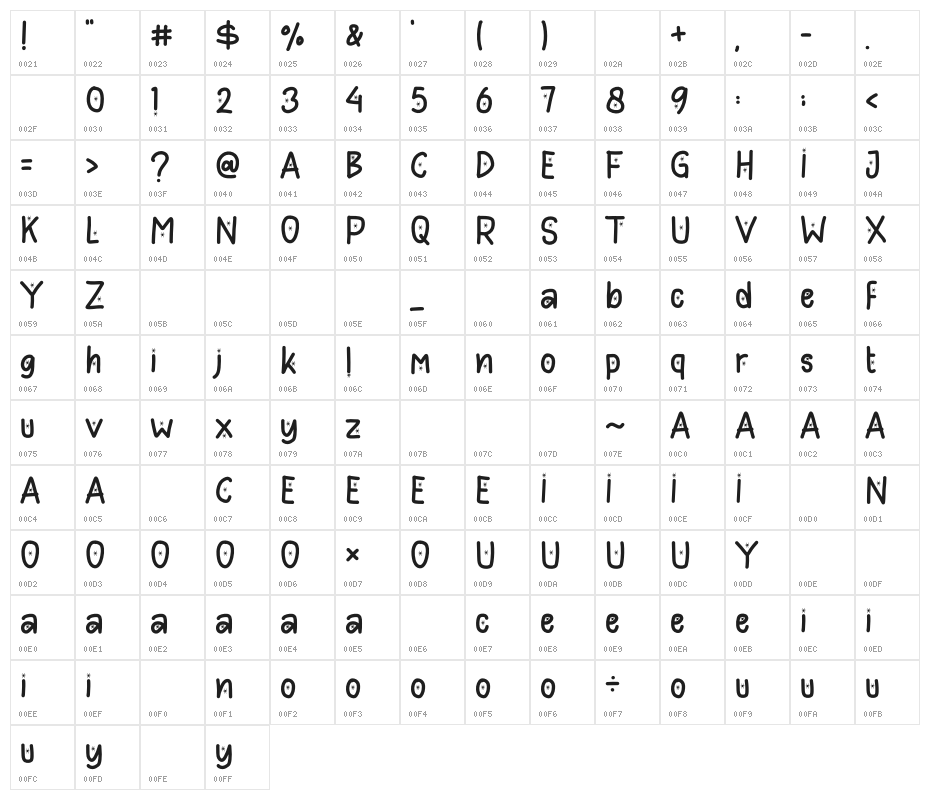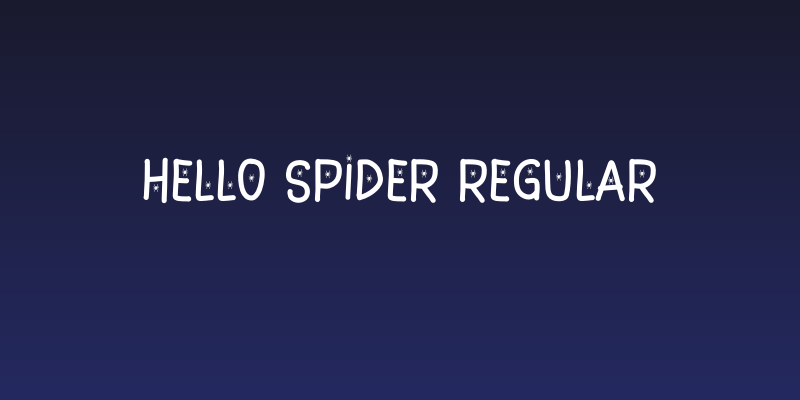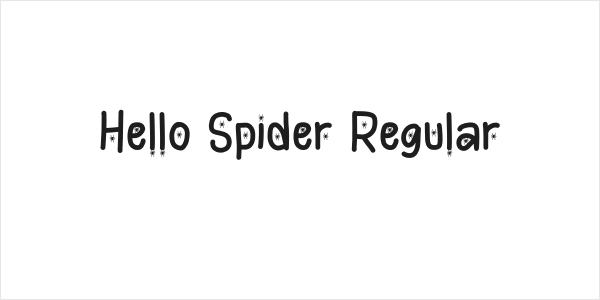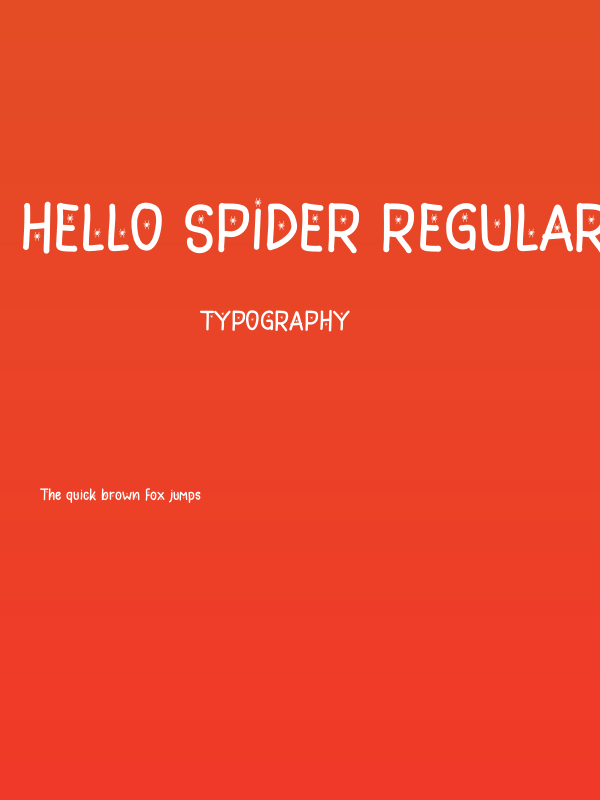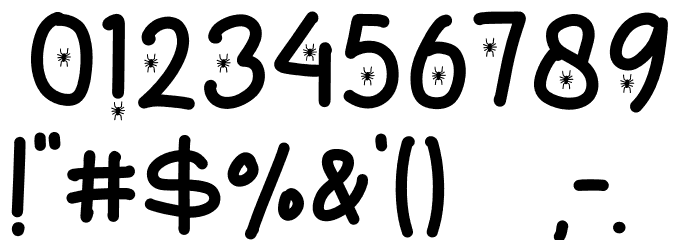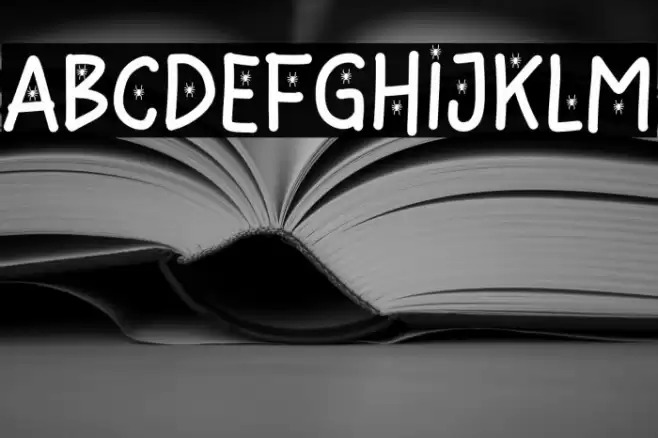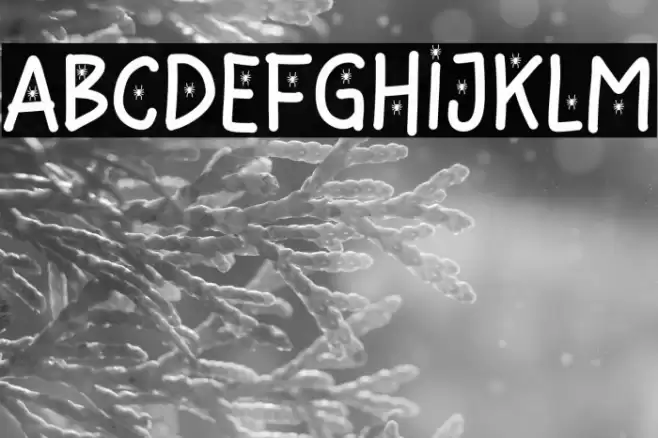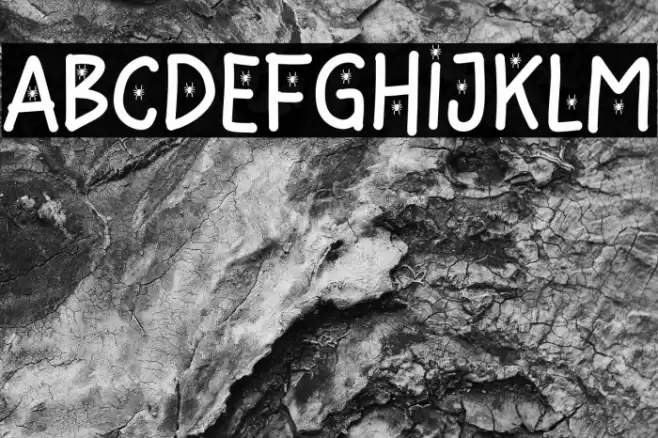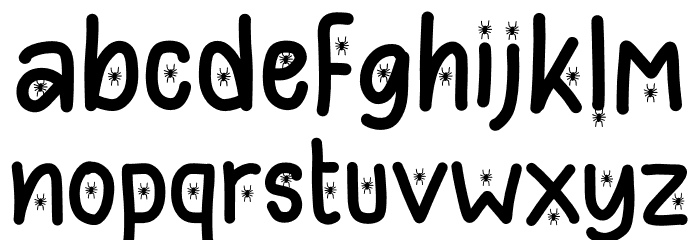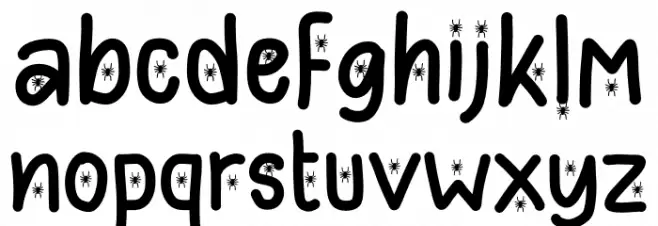
Hello Spider Regular Font
| Name | Hello Spider Regular |
| Schriften Familie | Hello Spider |
| Gesamtstil | Whimsical |
| Anwendungsfall | Headlines, Logos, Themed Events |
| Vorgeschlagene Projekte | Ideal for Halloween-themed designs, children's books, party invitations, and playful branding. |